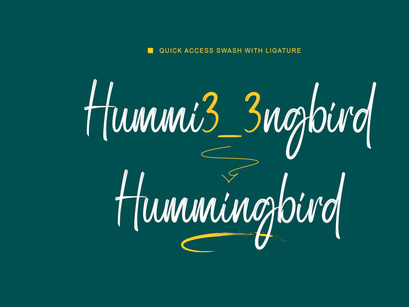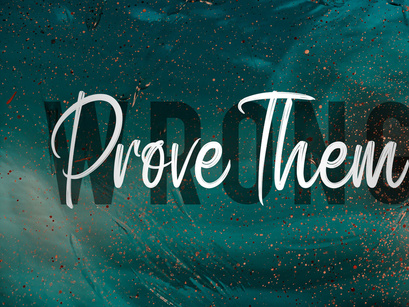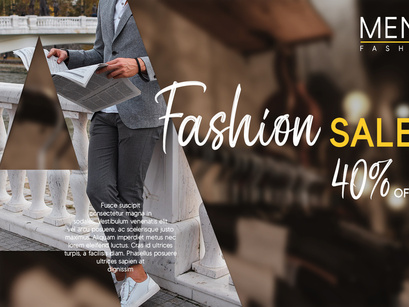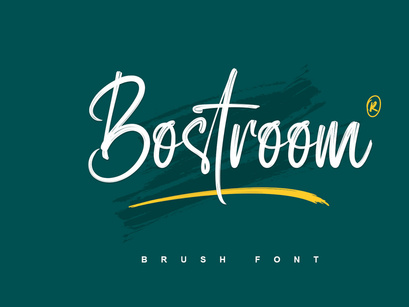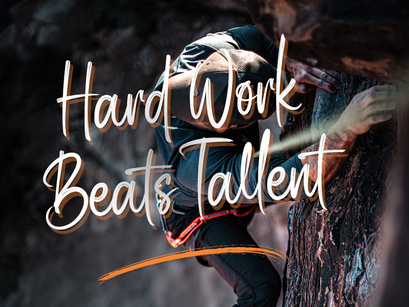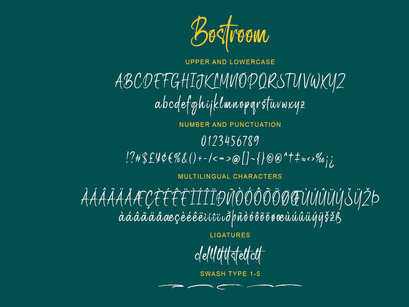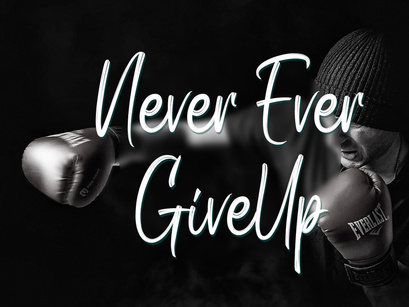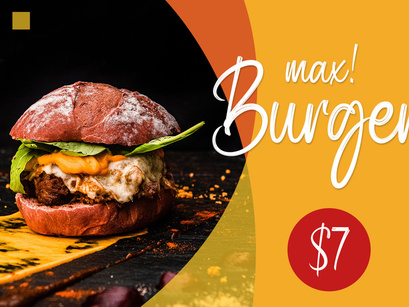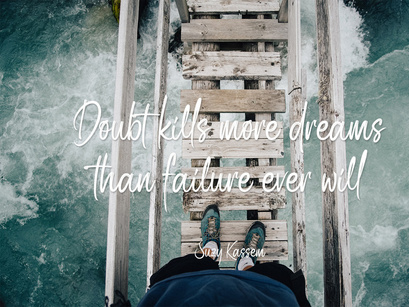
Bostroom is a beautiful brush font. Bostroom Font is perfect for many different project such as logos & branding, invitation, stationery, wedding designs, social media posts, advertisements, product packaging, product designs, label, photography, watermark, special events or anything.
Ligatures
Swash
Uppercase and Lowercase letters
Numbering and Punctuations
Also Multilingual Support